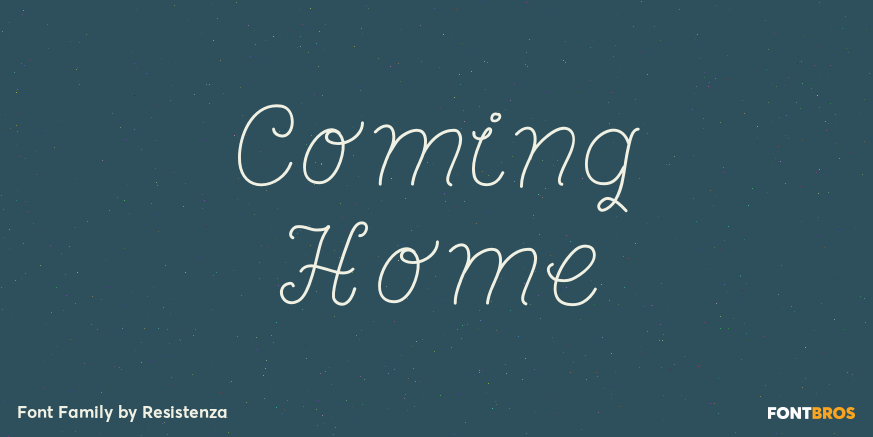
Coming Home
About Coming Home
Coming Home is a monoline curly script based on a girlish handwriting. Shapes and curves?and the matching dingbat set?lend a fresh personality and sweet home-made touch, perfect for crafts, packaging, party invitations, dessert tables and many other uses.…